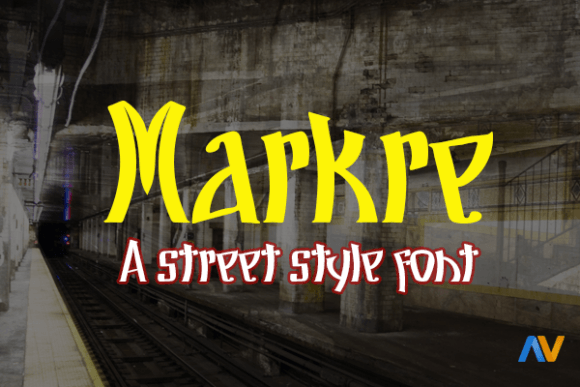
Markre Font: A Handwriting Marker Font for Creative Expression
In the world of typography, fonts play a crucial role in conveying messages, expressing emotions, and creating visual identities. Among the numerous fonts available, Markre Font stands out as a unique and creative handwriting marker font. Designed by Alberto Villanueva in 2017, Markre Font has gained popularity for its extravagant and street-style words. In this article, we’ll explore the features, benefits, and uses of Markre Font, as well as its significance in the world of typography.
What is Markre Font?
Markre Font is a handwriting marker font created by Alberto Villanueva in 2017. As a marker font, Markre is designed to mimic the look and feel of handwritten text created with a marker pen. The font features bold, expressive lines and a distinctive texture that gives it a street-style aesthetic. With its unique character, Markre Font is perfect for creative projects that require a personal touch.
Key Features of Markre Font
- Handwritten style: Markre Font is designed to resemble handwritten text, making it perfect for creative projects that require a personal touch.
- Marker pen texture: The font features a distinctive texture that mimics the look and feel of a marker pen.
- Extravagant words: Markre Font is known for its extravagant and street-style words, making it ideal for projects that require a bold and expressive typography.
Benefits of Using Markre Font
Markre Font offers several benefits for designers, artists, and writers. Some of the advantages of using Markre Font include:
- Unique and creative expression: Markre Font provides a unique and creative way to express yourself through typography.
- Attention-grabbing: The font’s bold and expressive lines make it perfect for attention-grabbing headlines, titles, and slogans.
- Versatile: Markre Font can be used on various platforms and devices, making it a versatile choice for designers and artists.
Uses of Markre Font
Markre Font can be used in various creative projects, including:
- Graphic design: Markre Font is perfect for graphic design projects that require bold and expressive typography, such as posters, flyers, and brochures.
- Art and illustration: The font can be used in art and illustration projects that require a personal touch, such as hand-drawn illustrations and doodles.
- Writing and blogging: Markre Font can be used in writing and blogging projects that require a unique and creative typography, such as quote posters and social media graphics.
- Branding and advertising: The font can be used in branding and advertising projects that require attention-grabbing headlines and titles.
Significance of Markre Font in Typography
Markre Font has made a significant contribution to the world of typography. The font’s unique and creative design has inspired a new generation of designers and artists to experiment with handwriting marker fonts. Markre Font has also demonstrated the importance of texture and expressiveness in typography, encouraging designers to push the boundaries of traditional font design.
About the Creator: Alberto Villanueva
Alberto Villanueva is a talented designer and typographer who created Markre Font in 2017. With a passion for creative typography, Villanueva has designed several fonts that have gained popularity among designers and artists. His work on Markre Font has showcased his ability to create unique and expressive fonts that inspire creativity and self-expression.
In conclusion, Markre Font is a unique and creative handwriting marker font that has made a significant impact in the world of typography. With its extravagant and street-style words, Markre Font is perfect for creative projects that require a personal touch. The font’s benefits, uses, and significance make it a valuable resource for designers, artists, and writers. As a testament to the power of creative typography, Markre Font continues to inspire and influence the design community.